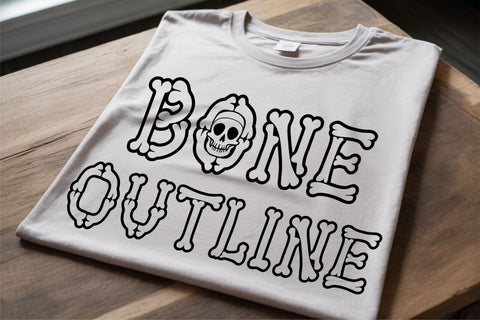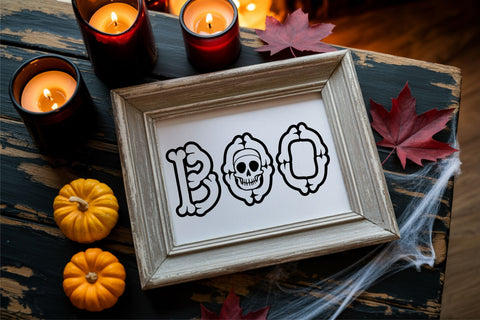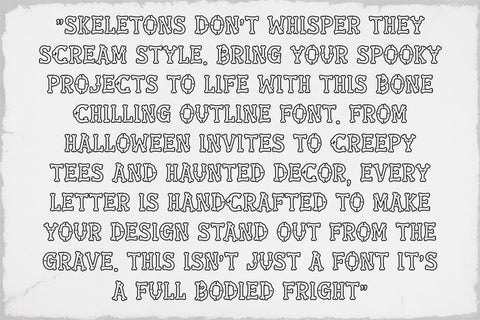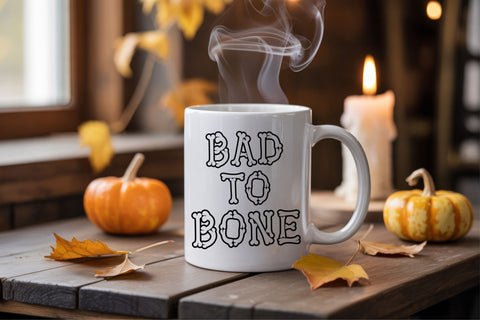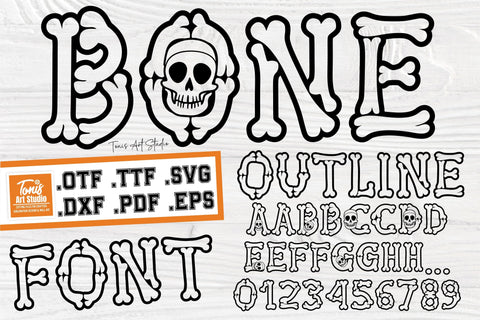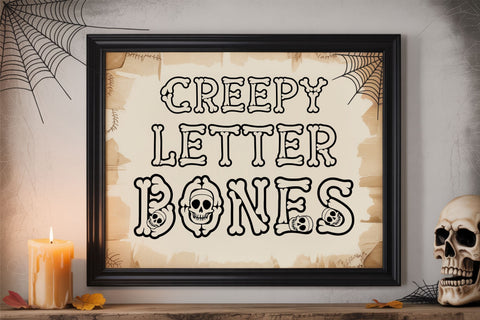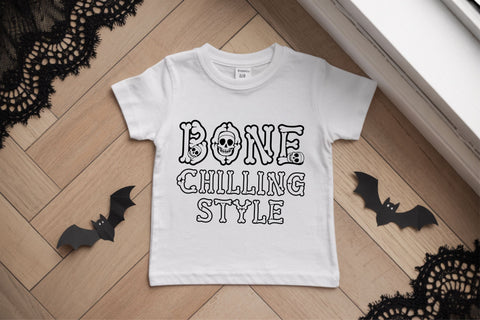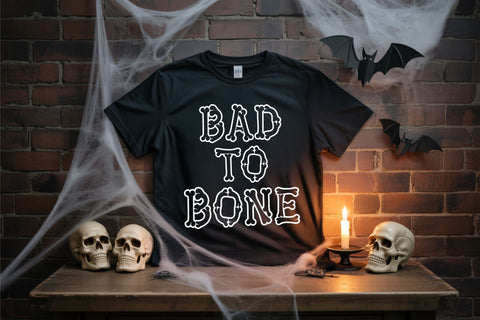
Bone Outline Font SVG TTF OTF – Spooky Halloween Letters
Add a spooky touch to your projects with this bold Bone Outline Font! Includes OTF, TTF, SVG, DXF, EPS, and PDF files—perfect for Halloween crafts, signs, shirts, mugs, and more. With skeleton-style letters and playful bone details, this font is ideal for spooky quotes, party invitations, and haunted house decor. Easy to use with Cricut, Silhouette, and other cutting machines.